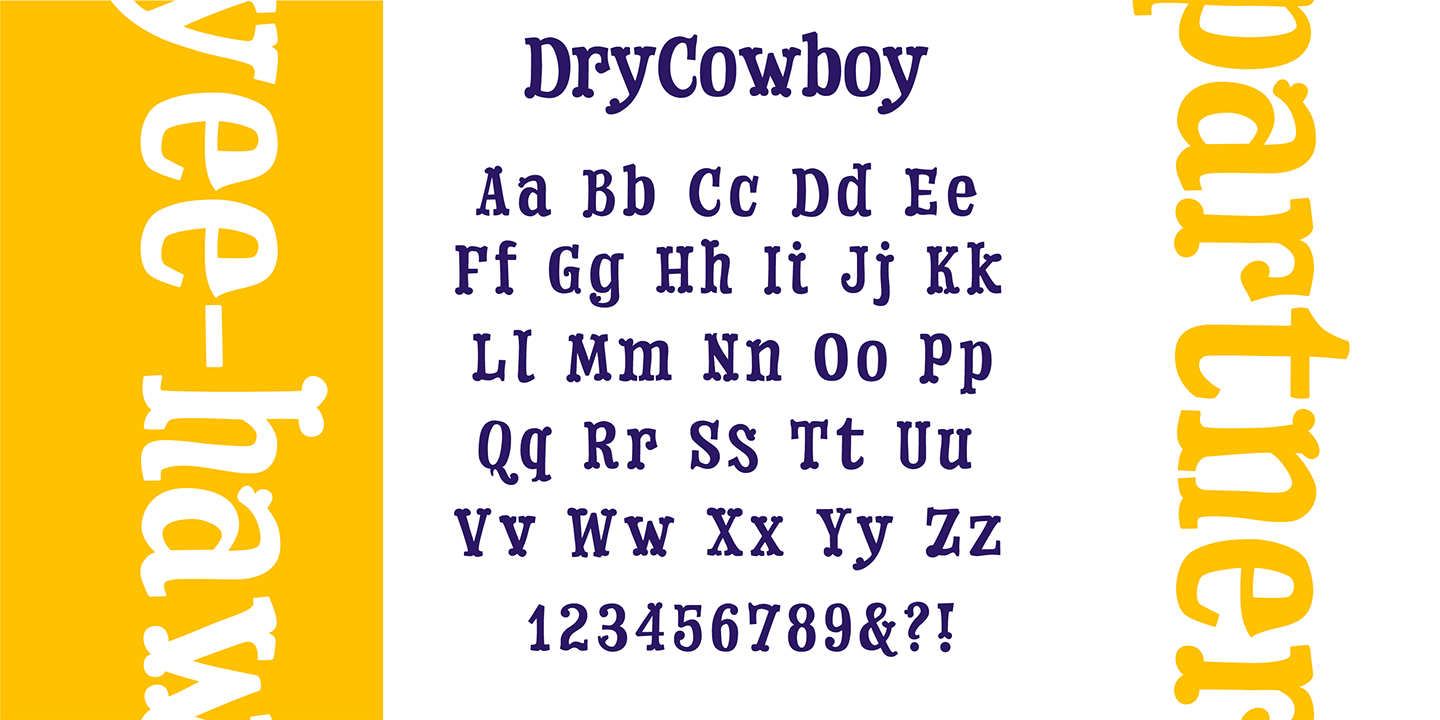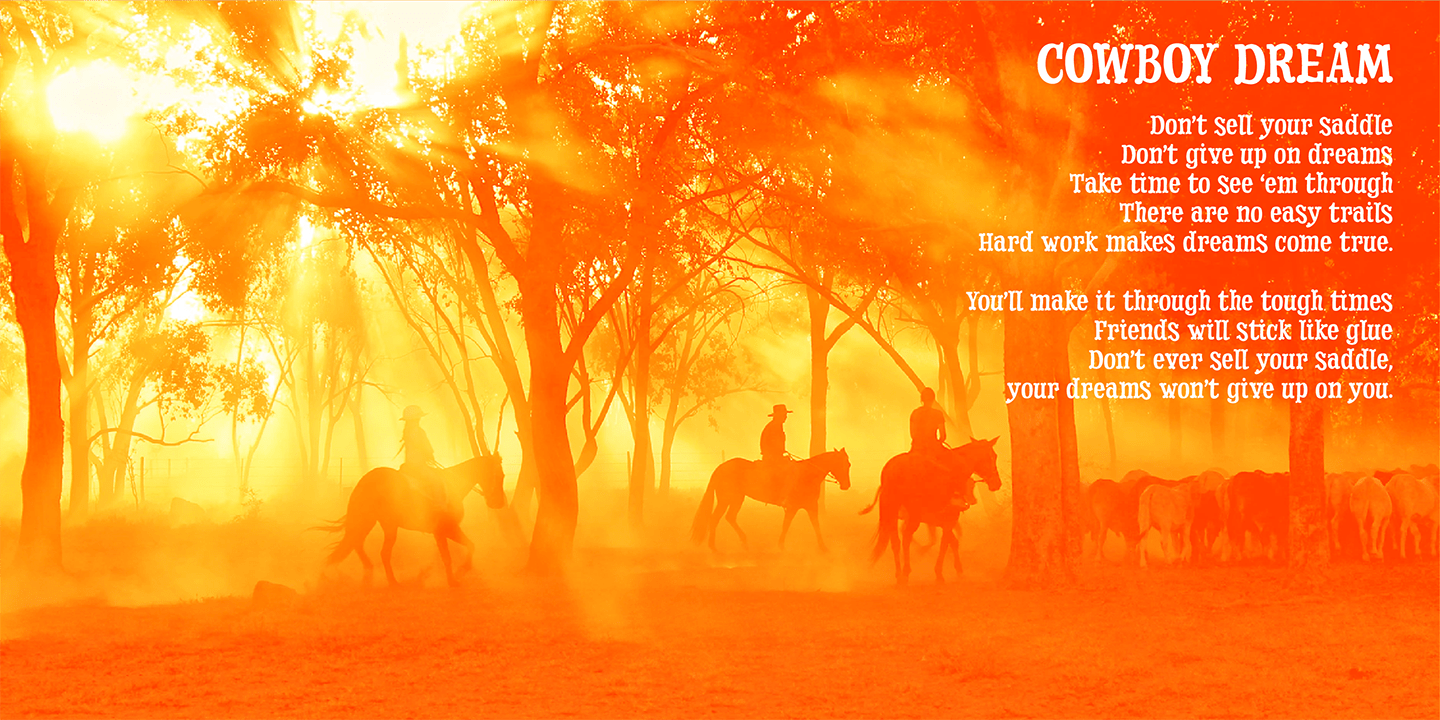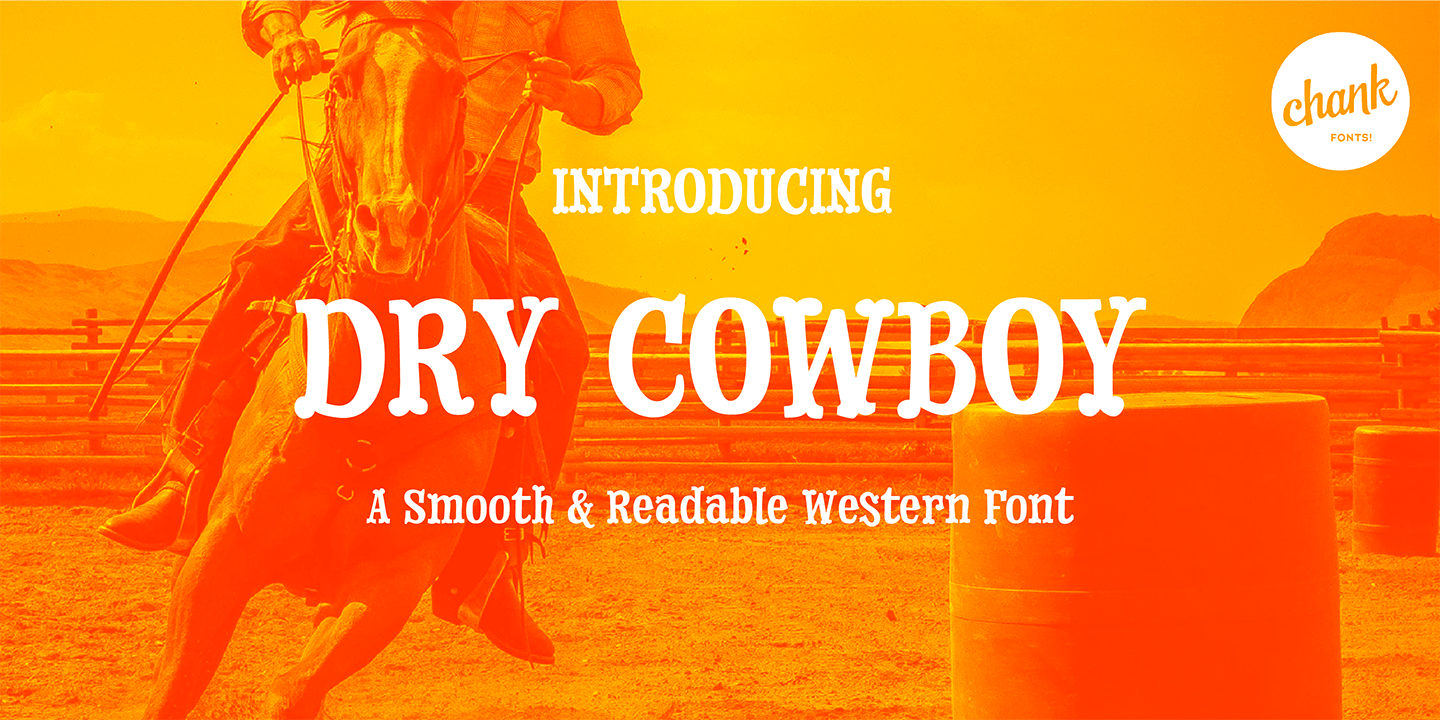
Dry Cowboy
About Dry Cowboy
Send me a shot of sarsparilla and let\’s celebrate a great cowboy font!Dry Cowboy is here as a more legible counterpart to Chank\’s Drunk Cowboy font. The new font is a bit cleaner, a bit clearer and it has a bit less of a drawl to it. Now you have a choice…